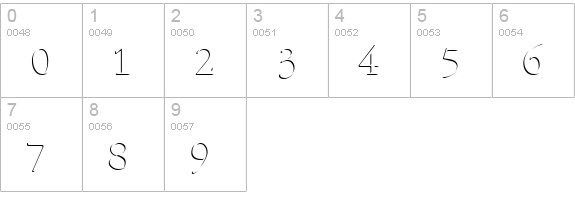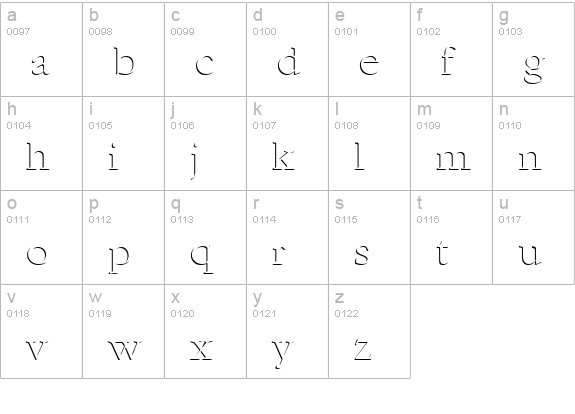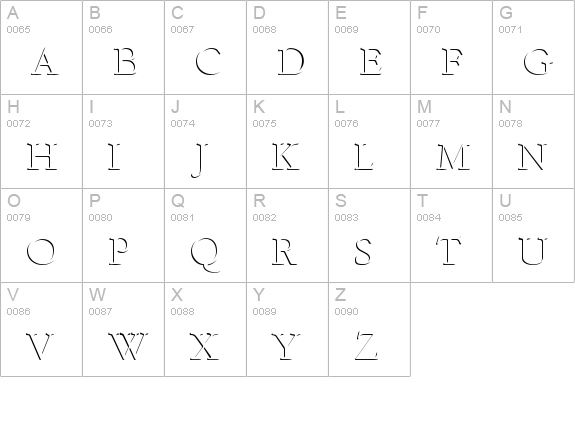
Relief Serif font is a timeless and elegant typeface that captures the essence of classic typography. With its sophisticated serifs and clean lines, this font effortlessly combines traditional elements with a modern twist. Designed to bring a sense of relief and clarity to any design, Relief Serif is perfect for a wide range of projects, from editorial layouts to branding and packaging. Its legibility and versatility make it an excellent choice for both print and digital applications. One of the standout features of Relief Serif is its extensive character set, which includes a variety of weights and styles that can be used to create captivating designs. Whether you're looking for a bold and impactful headline or a subtle and refined body text, this font has you covered. But what makes Relief Serif even more enticing is that it is free! That's right, this exceptional typeface is freely available to download at FontsMarket.com. This means that you can add a touch of sophistication and professionalism to your projects without breaking the bank. So why wait? Download Relief Serif now and experience the beauty and versatility of this remarkable font. Whether you're a professional designer or a typography enthusiast, this font is sure to become a valuable addition to your collection. Don't miss out on the opportunity to enhance your designs with the elegance and grace of Relief Serif.